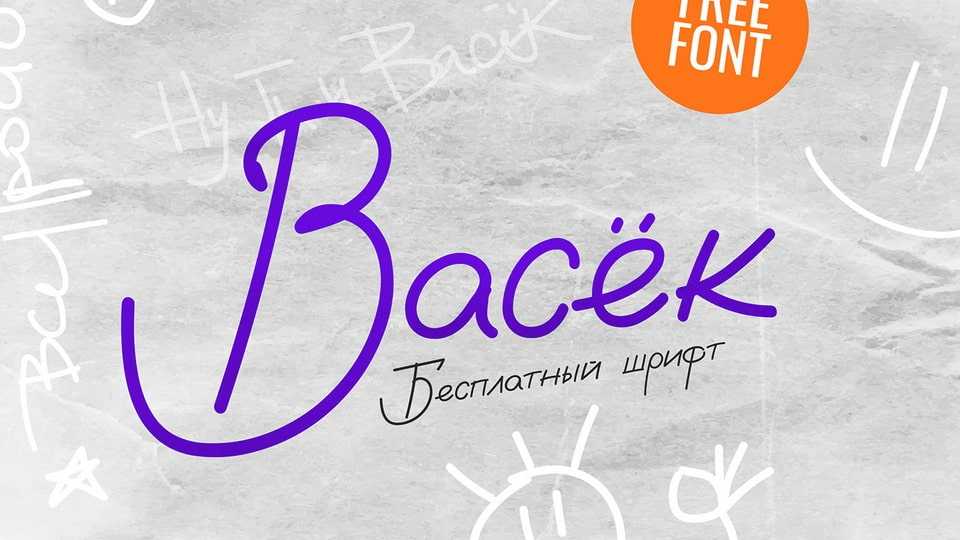
Download Vasek font, a versatile handwritten script. Vasek will suit both casual notes in comics and memes, as well as designs, titles and other graphics.